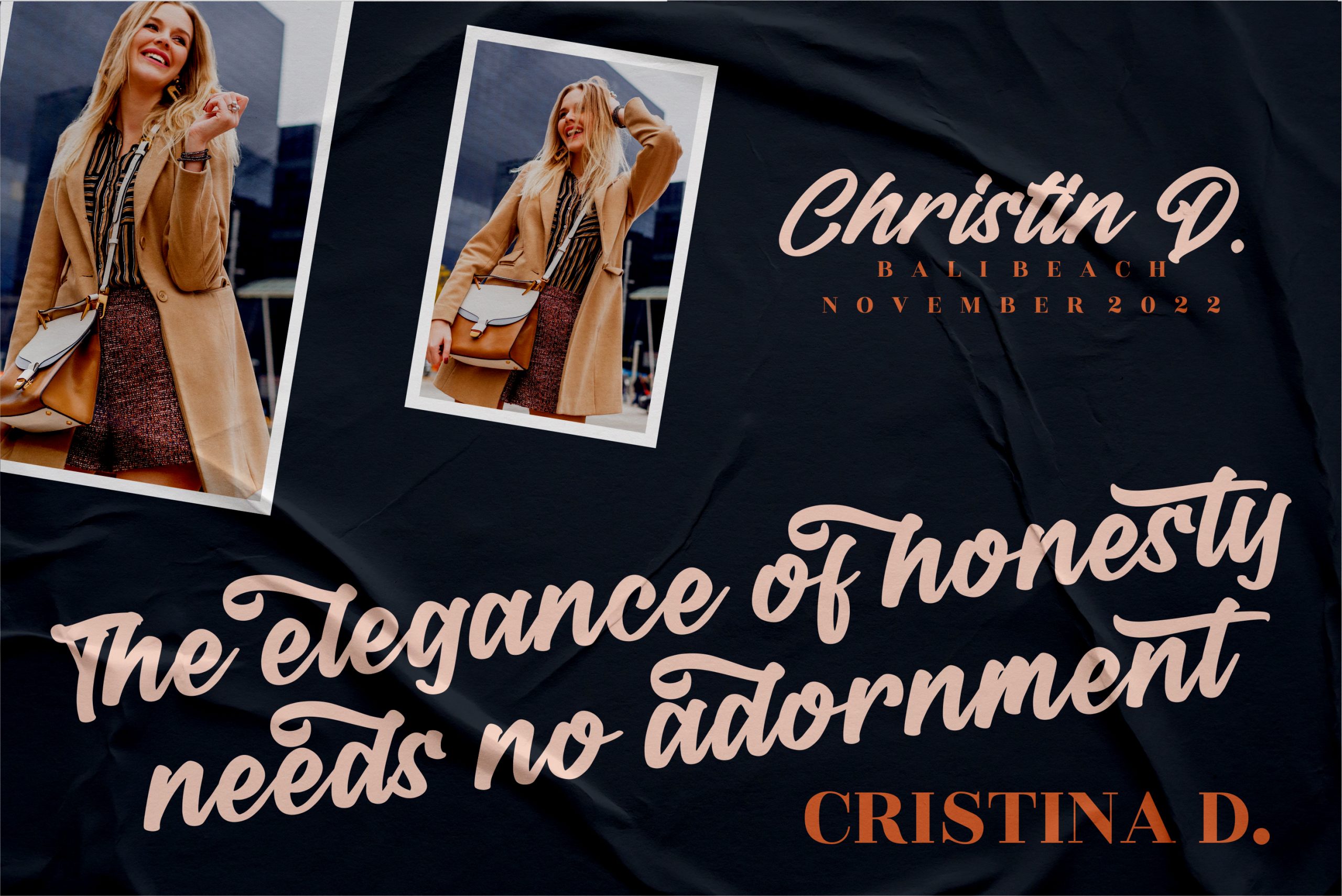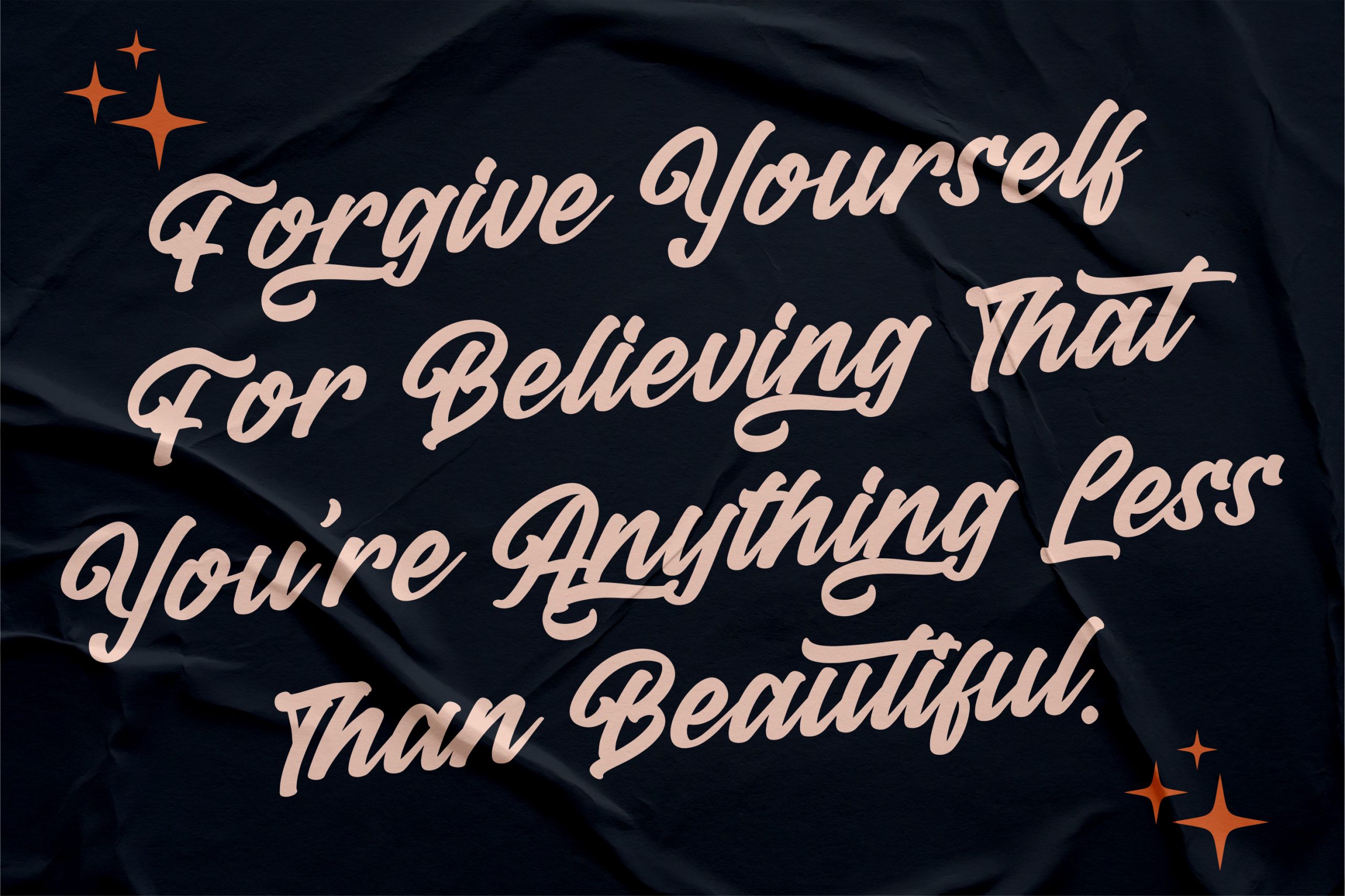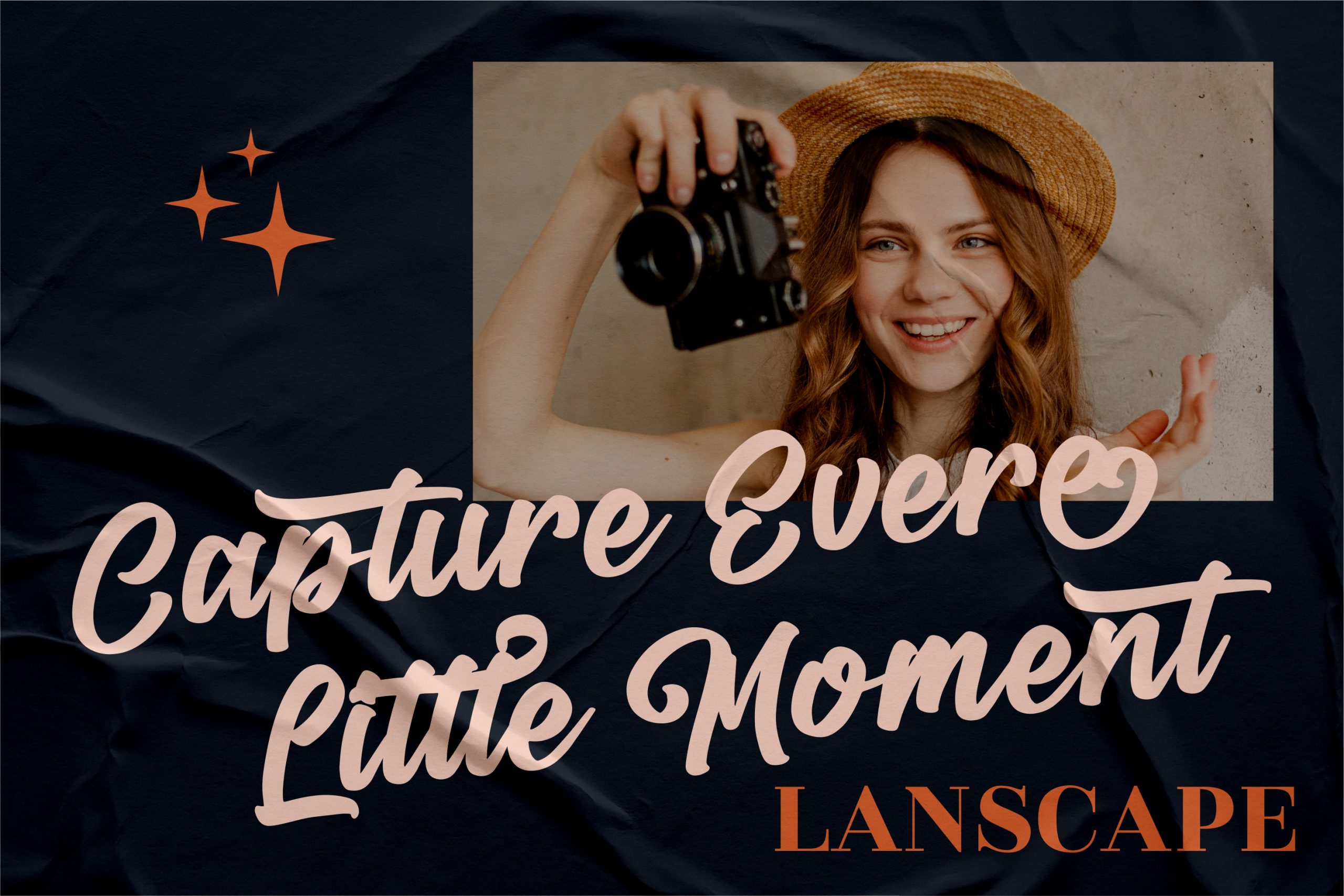
Rentrick Kentack Font
Rentrick Kentack Font – Modern Calligraphy Font, from Perspectype Studio, is a premium signature font, suitable for any projects such as: logos, branding projects, homeware designs, product packaging, mugs, quotes, posters, shopping bags, t-shirts, book covers, name card, invitation cards, greeting cards, label, photography, watermark, special events, and all your other luxury projects that need a premium signature taste.